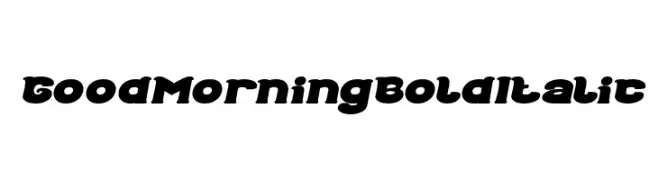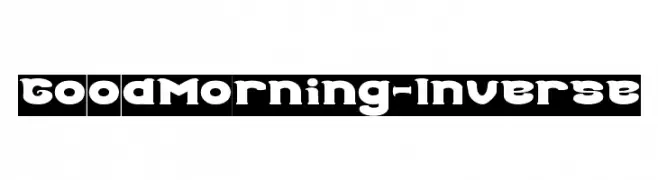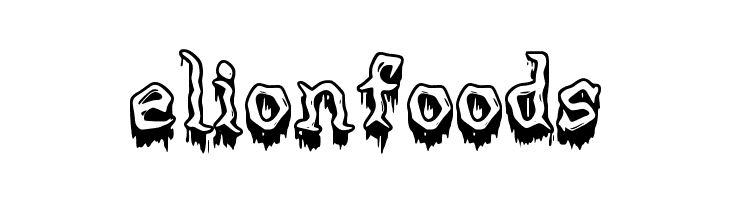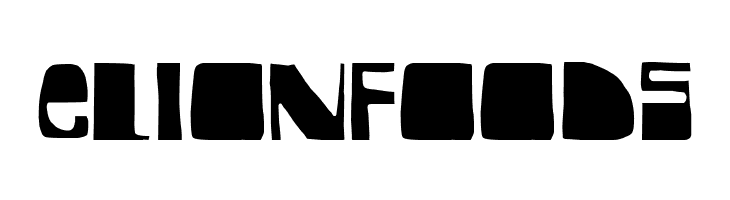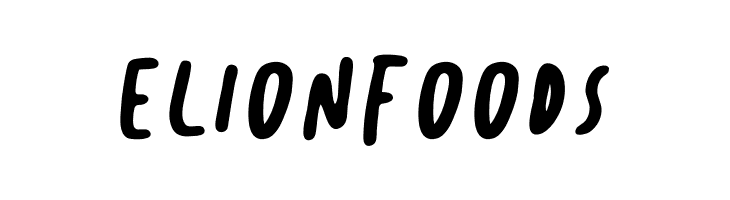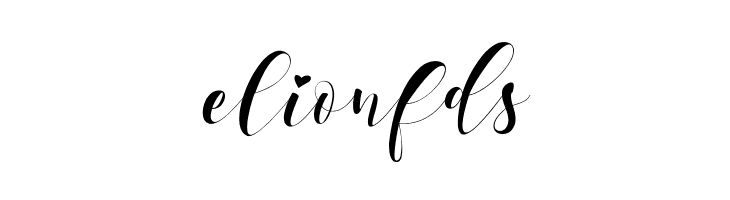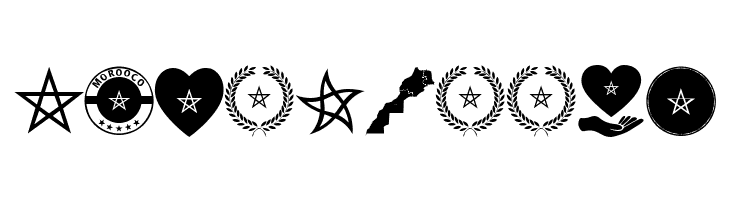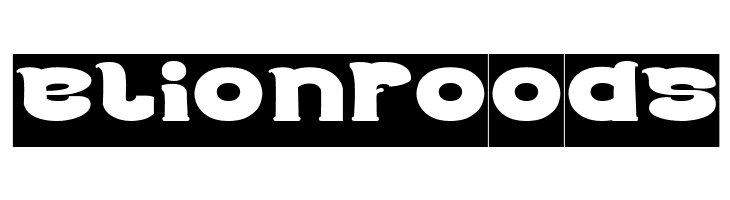
( Walter E Stewart )
A jagged, eerie font with distressed, twisted characters ideal for horror themes.
( Walter E Stewart )
A bold, dripping font with a playful yet eerie aesthetic.
( Woodcutter - woodcutter Manero - www.woodcutter.es )
A bold, playful font with irregular, chunky characters and a hand-cut appearance.
( Zansari - Zaffar Ansari - www.zansarifont.com )
A bold, handwritten font with smooth, rounded edges and a playful style.
( aldedesign - Alde Saputro - creativemarket.com/aldedesign?u=aldedesign )
An elegant, flowing script font with graceful curves and fluid strokes.
( elharrak - elharrak fonts - el-harrak.blogspot.com/ )
Bold, geometric display font with high contrast and decorative elements.
( imagex - www.imagex-fonts.com )
A bold, collage-textured font inspired by vintage newspaper clippings.
( imagex - www.imagex-fonts.com )
A playful, skull-themed decorative display font with hand-drawn illustrations.
( weknow - Wino S Kadir - www.creativefabrica.com/designer/weknow/ )
A bold, playful font with rounded, whimsical characters.
( weknow - Wino S Kadir - www.creativefabrica.com/designer/weknow/ )
A bold, playful, and italic font with smooth curves and a dynamic style.